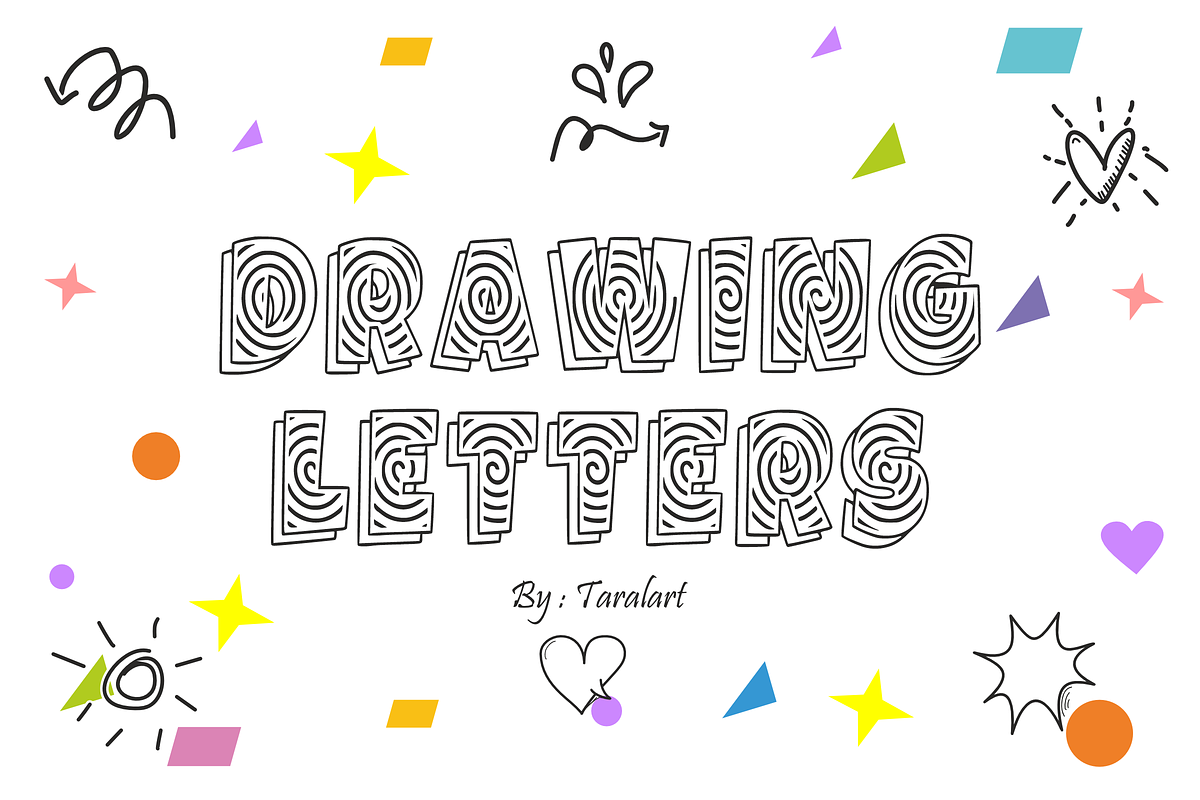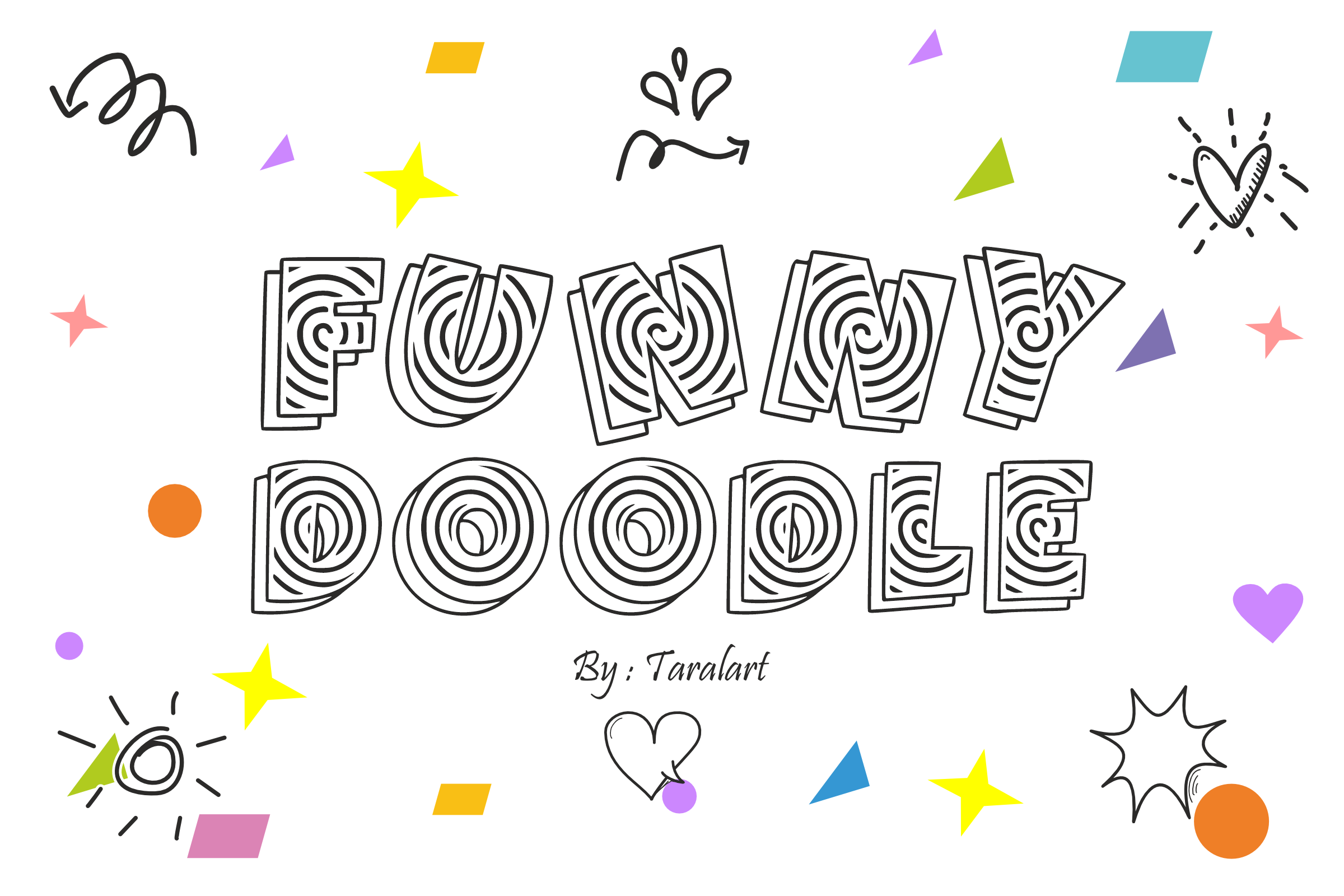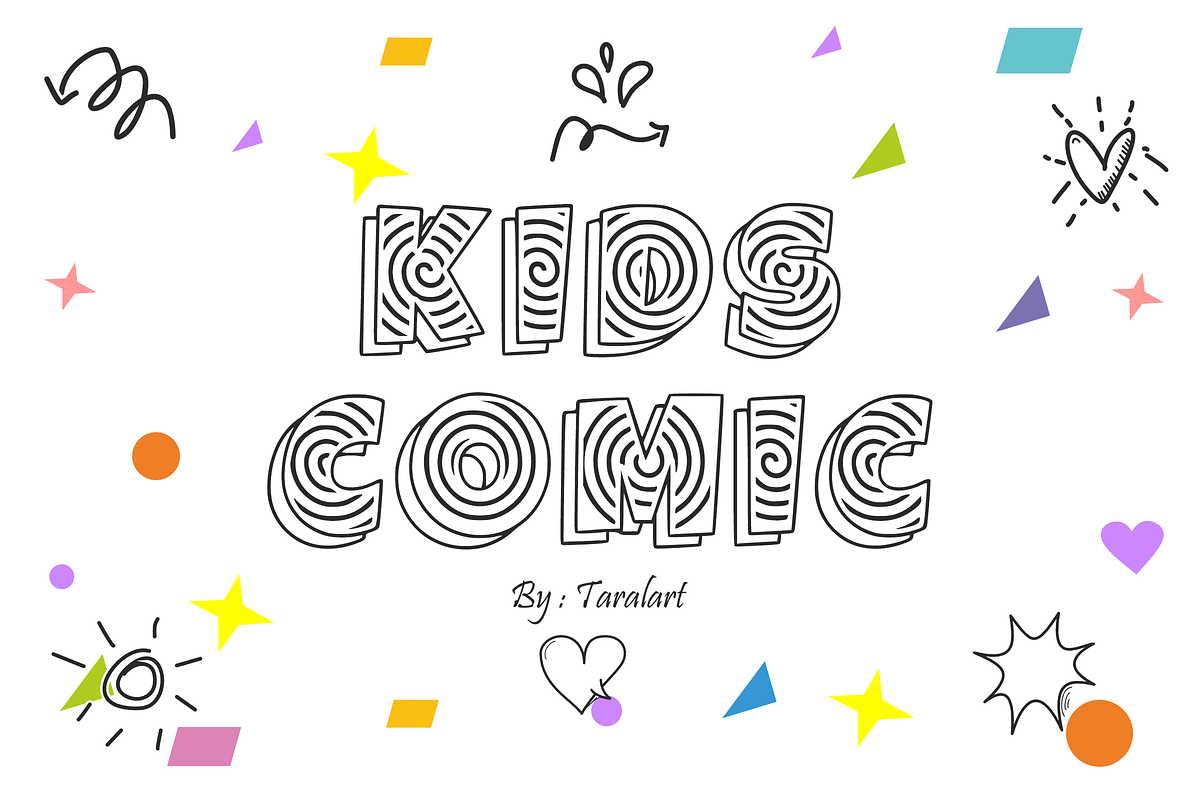
FUNNY DOODLE- Playful Whimsical Font
FUNNY DOODLE - Playful Whimsical Display Font
Unleash your imagination and add a burst of pure joy to your layouts with Funny Doodle! This charming display font features bold, chunky block letters uniquely filled with a mesmerizing hand-drawn spiral swirl pattern. It’s the ultimate choice for instantly injecting a lighthearted, sketchy, and completely authentic doodle aesthetic into your headlines.
Perfect for kids' activities, school crafts, and trend-focused DIY projects, Funny Doodle masterfully combines a playful cartoon style with maximum legibility. It is highly versatile, deeply expressive, and fully optimized for smooth performance across premium digital cutting tools and professional print setups.
All-Caps Character Set (Chunky uppercase letters with inner swirl patterns)
Numbers & Basic Punctuation (Essential, simple symbols included)
Children's Coloring Books, Comic Strips, & Playful Activity Pages 🎨
Cricut, Silhouette, & DIY Kid-Friendly Craft Sublimation Projects ✂️
Teacher Resources, Classroom Materials, & Fun School Printables 🎒
Custom Die-Cut Stickers, Creative Planners, & Bullet Journals 📓
Kids' Product Packaging, Toy Labels, & Whimsical Birthday Themes 🎈